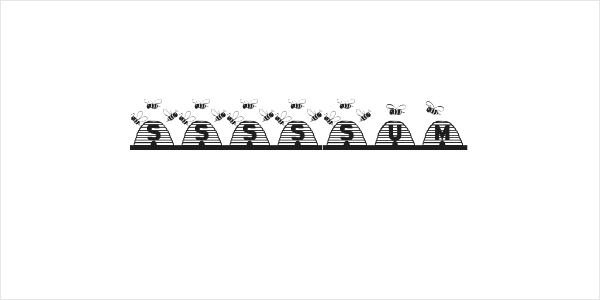
Sssssum Font
Sssssum Description
This whimsical and playful font features characters designed to resemble beehives, with each letter and number encased in a dome-like structure. The font is adorned with small bee illustrations buzzing around the top of each character, adding a lively and dynamic element. The characters are bold and structured with horizontal lines, creating a sense of movement and texture. This font is perfect for projects that require a fun and engaging aesthetic, such as children's books, playful branding, or themed event invitations.
| Proposed Projects | Ideal for children's books, playful branding, themed event invitations, or educational materials. |